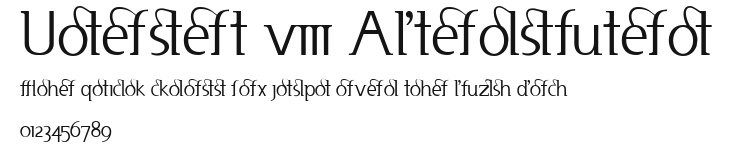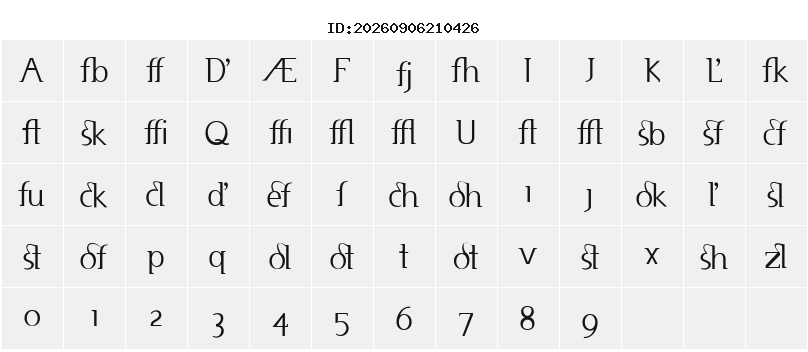
• Font Name: Usenet - Alternates
• Font ID: Apostrophe&AlejandroPaul: Paulus: 2000
• Full Font Name: Usenet - Alternates
• Version: Version 1.5; 2000
• PostScript Name: Usenet-Alternates
• Character Count: 204
• Designer: Apostrophe & Alejandro Paul
About Usenet - Alternates.ttf
Usenet - Alternates.ttf is a modern, elegant sans-serif font designed for ultimate readability and visual harmony. Perfect for branding, headlines, web design, and print materials.